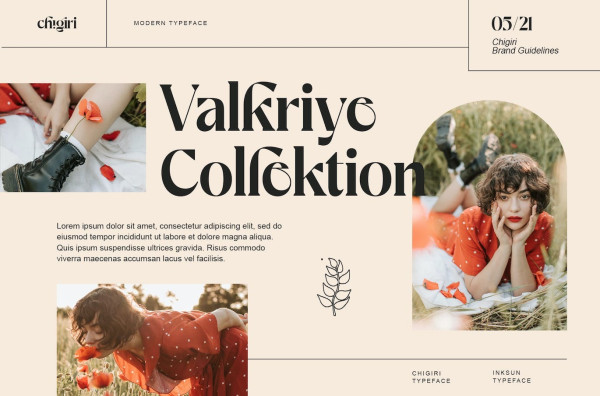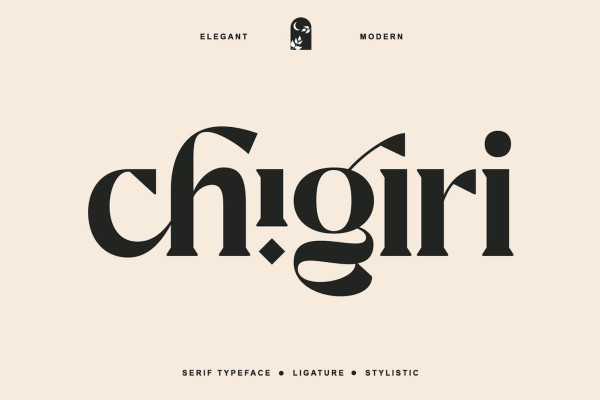
Chigiri Font
Chigiri Font, a Sans-Serif display font with a classic, feminine and elegant style, combined with a beautiful alternative stylist. The font Chigiri is perfect for various projects such as logos and branding, invitations, stationery, wedding designs, social media posts, advertisements, print quotes, product packaging, product designs, labels, photography, watermarks, special events or anything else